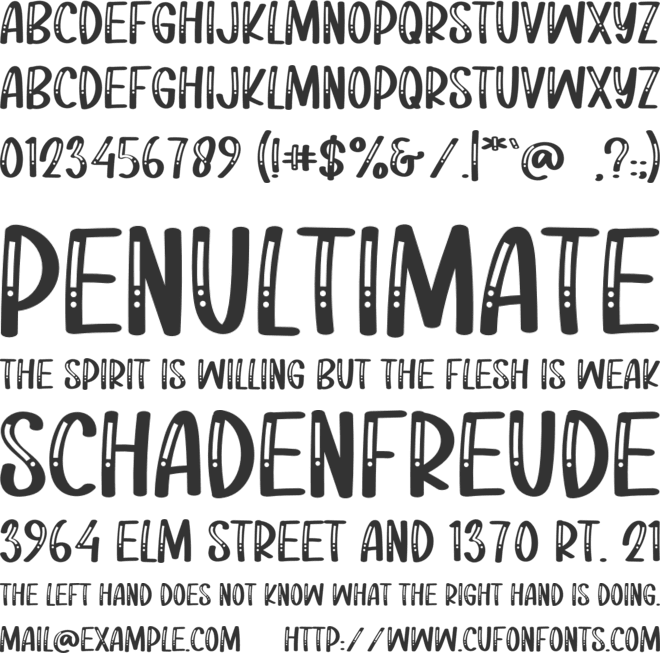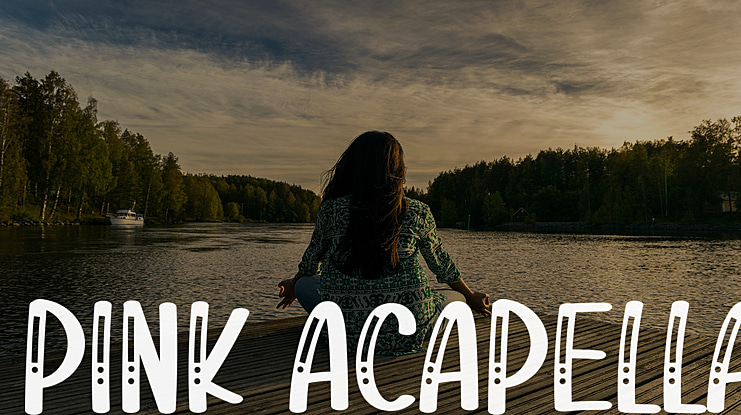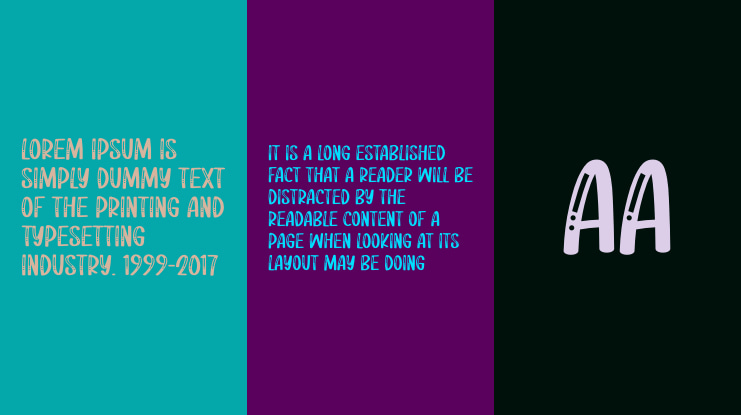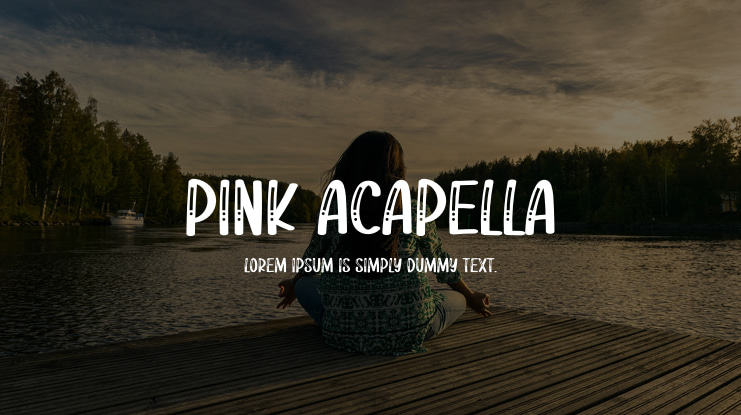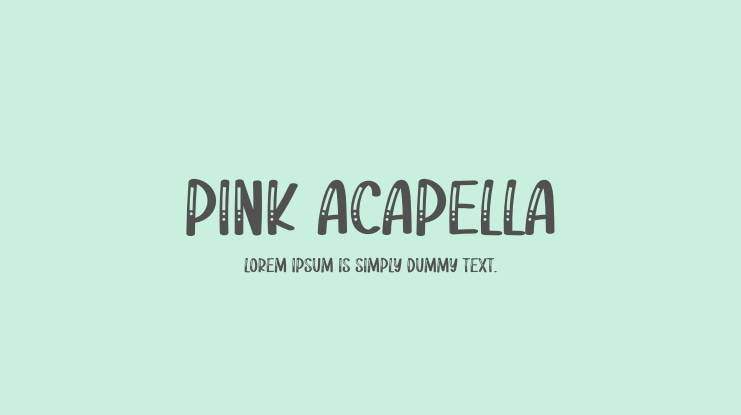
Pink Acapella Font
Pink Acapella is a cute and friendly display font. It embodies playfulness and authenticity and is the perfect choice for any children activity or school project.